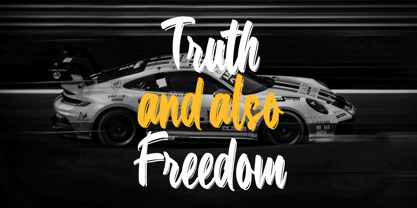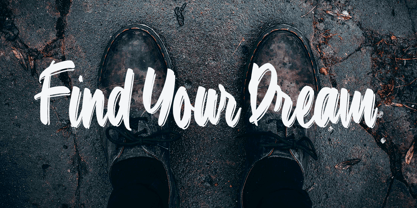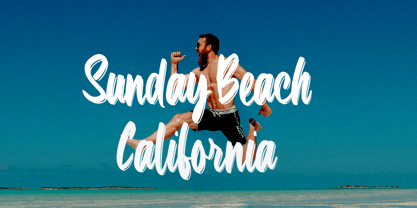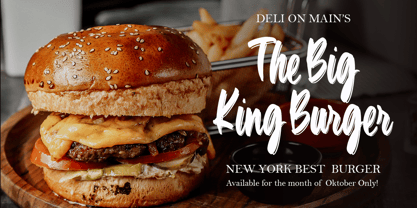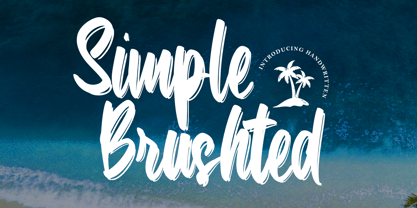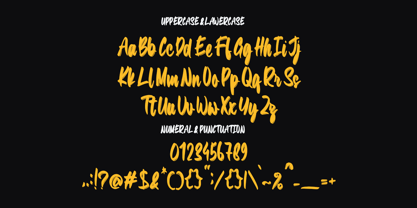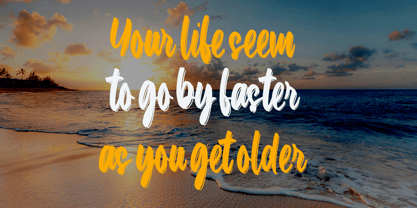
Simple Brushted
by Tertoecreative
The Simple Brushted Font Family was designed by Khai Dir and published by Tertoecreative. Simple Brushted contains 2 styles and family package options. More about this family
Simple Brushted is a bold and expressive dry brush font, handcrafted with a real Kuretake brush pen. Every stroke was written by hand, then carefully scanned and digitized to preserve its raw, natural texture — delivering a truly authentic brush feel in every letter.
This font is perfect for creative projects that demand energy and character. Whether you’re designing branding materials, t-shirt graphics, music merchandise, posters, or bold headlines, Simple Brushted adds a handcrafted edge that stands out in any context.
The font includes letters with stylistic alternates, punctuation, symbols, dynamic swashes, and multilingual support. With its natural flow and powerful brush strokes, Simple Brushted is ready to bring impact and personality to your next design.
Designers: Khai Dir
Foundry: Tertoecreative
Simple Brushted